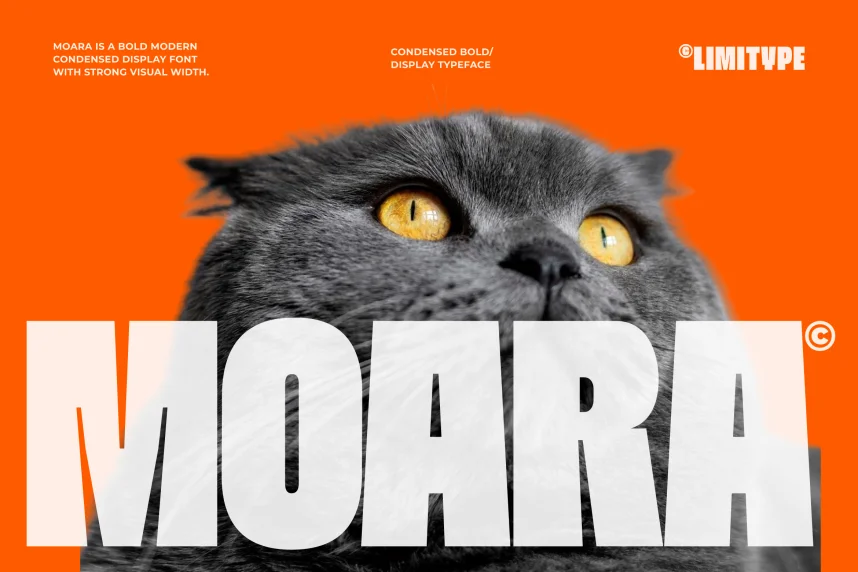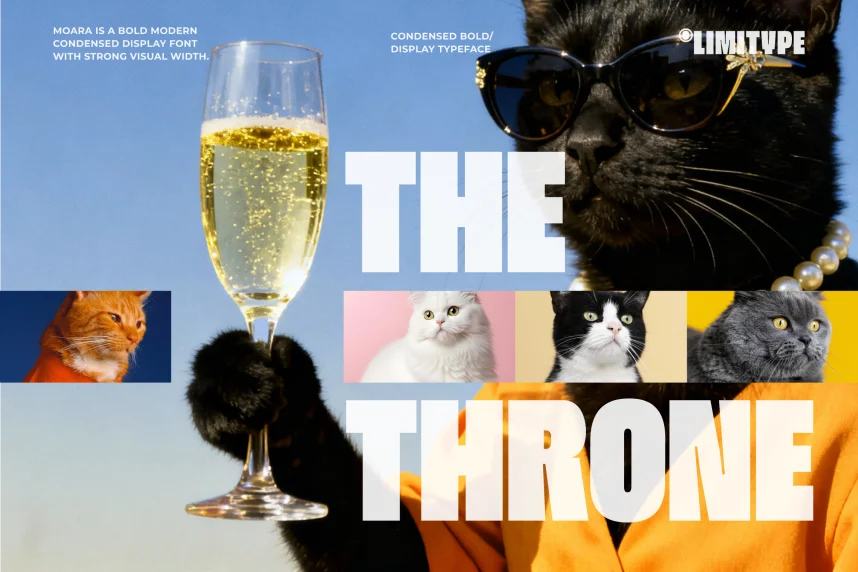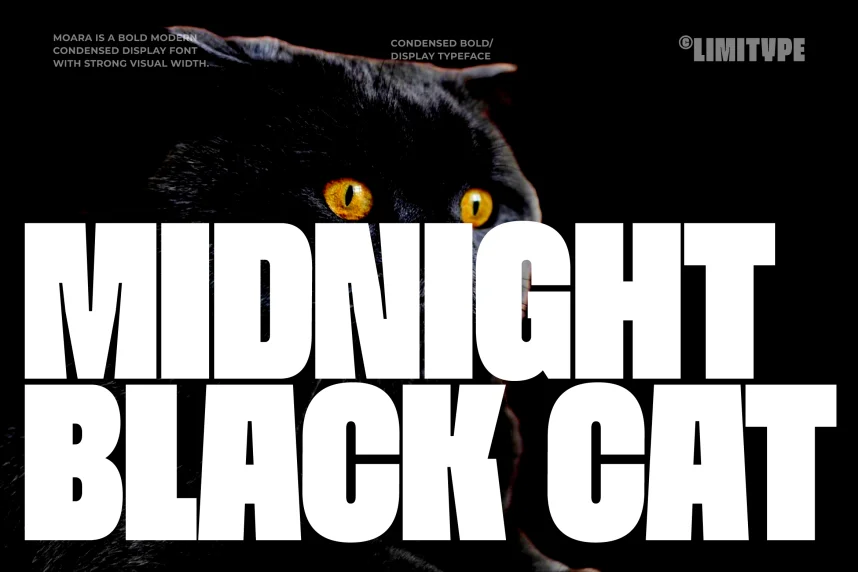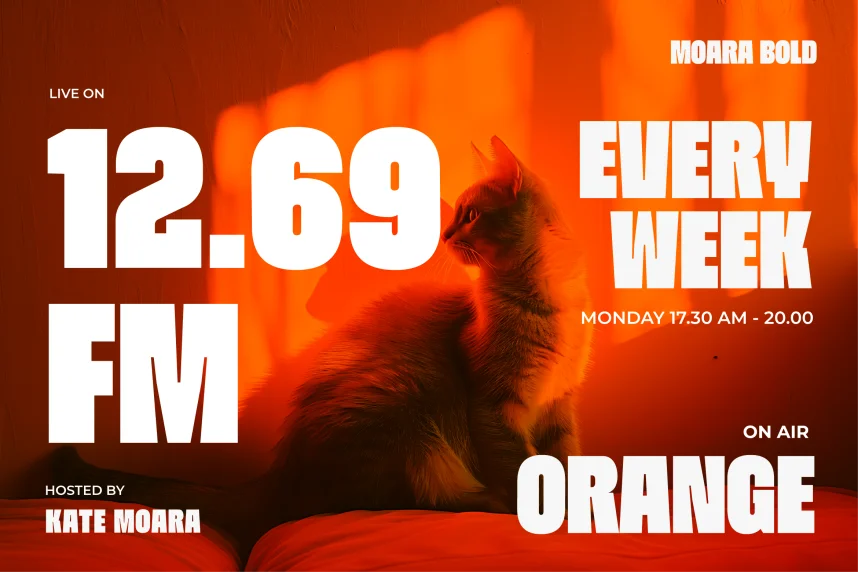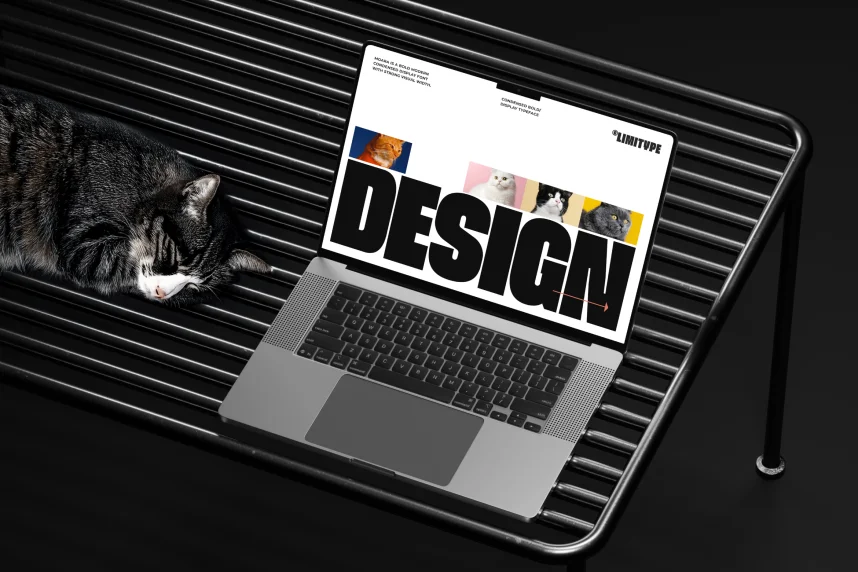
Moara Font is a serif typeface built to solve common readability issues in long-form text, branding materials, and printed layouts. Designers often need steady letter spacing and clear structure for books, stationery, and invitations where visual consistency matters across print and digital formats.
Moara Font features traditional serif construction with moderate stroke contrast and balanced proportions. The letterforms include clear terminals, open counters, and stable vertical stress, which support comfortable reading at body-text sizes. Its structure follows classic serif principles while remaining adaptable for modern editorial design. The font usually includes uppercase and lowercase letters, numerals, punctuation, and basic multilingual support.